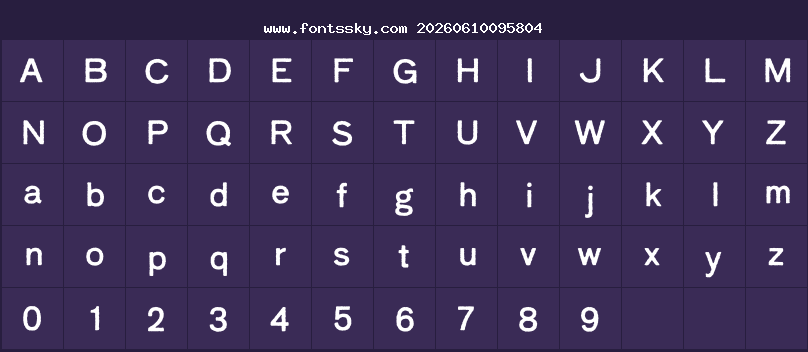
• Font Name: 寒蝉活黑体_復 Bold
• Full Font Name: 寒蝉活黑体_復 Bold
• Designer: Warren2060
• Manufacturer: ChillType
• Description: 基于源石黑体(GenSekiGothicJP)& ShipporiAntique的改变。
About 寒蝉活黑体_復 Bold.otf
寒蝉活黑体_復 Bold.otf is a modern, elegant sans-serif font designed for ultimate readability and visual harmony. Perfect for branding, headlines, web design, and print materials.